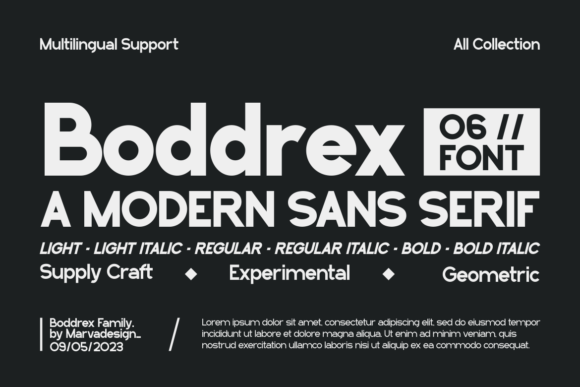
Boddrex Font: Elevate Your Design with a Sleek and Modern Sans-Serif
In the realm of typography, a font can make or break the visual appeal of a project. For those seeking a clean, contemporary, and professional look, Boddrex font emerges as an excellent choice. This sleek and modern sans-serif font is designed to bring a polished aesthetic to various applications, from websites and presentations to any design project that demands a touch of sophistication.
The Essence of Boddrex Font
Boddrex is characterized by its straightforward design, which is both simple and elegant. Its clean lines and uncomplicated structure make it an ideal choice for designers aiming to convey a sense of modernity and professionalism. The font’s simplicity ensures that it remains versatile, allowing it to be used across different mediums without losing its impact.
Key Features of Boddrex Font
- Modern Sans-Serif Design: Boddrex boasts a contemporary sans-serif design that fits perfectly into the modern design landscape. Its sleek appearance is ideal for projects that require a fresh and clean aesthetic.
- Clean and Straightforward: The font’s clean and straightforward design ensures that it can be used in a variety of contexts, from digital platforms to print materials, without appearing out of place.
- Versatility: Boddrex’s versatility is one of its standout features. It can be employed in everything from website designs and presentations to brochures and posters, offering a consistent and professional look across different mediums.
- Ease of Reading: Despite its modern and sleek appearance, Boddrex does not compromise on readability. Its clear and distinct letterforms ensure that text remains easy to read, making it suitable for body text as well as headings.
Applications of Boddrex Font
The applications of Boddrex font are vast and varied. Its modern simplicity and professional look make it an excellent choice for:
- Web Design: For websites aiming for a clean and modern look, Boddrex can be used for headings, subheadings, and even body text, providing a cohesive and polished appearance.
- Presentations: Elevate your presentations with Boddrex, making them look more sophisticated and engaging. Its clarity ensures that your message is conveyed effectively.
- Print Materials: From brochures and flyers to posters and business cards, Boddrex brings a touch of modern elegance to any print material.
- Branding: For brands looking to revamp their image with a modern and clean aesthetic, Boddrex can be a valuable asset in creating a consistent visual identity.
Why Choose Boddrex Font?
In a world where first impressions are crucial, the choice of font can significantly impact how your project is perceived. Here are a few reasons why Boddrex stands out:
- Timeless Appeal: While Boddrex is undeniably modern, its clean design ensures that it will remain relevant for years to come, avoiding the quick obsolescence that can affect trendier fonts.
- Enhanced Readability: Boddrex combines style with substance, offering not only a visually appealing design but also ensuring that readability is never compromised.
- Wide Compatibility: The font’s versatility and simplicity make it compatible with a wide range of design projects and applications, providing a consistent look and feel.
How to Use Boddrex Font Effectively
To make the most of Boddrex font, consider the following tips:
- Pair with Complementary Fonts: While Boddrex is versatile on its own, pairing it with complementary fonts can add depth and interest to your design. Choose fonts that maintain the clean and modern vibe.
- Adjust Size and Weight: Boddrex comes in various weights, allowing you to play with size and weight to create visual hierarchy and emphasize key points.
- Consider Color: The color you choose for Boddrex can significantly impact its effectiveness. Stick to a palette that complements your brand and design theme.
Boddrex font offers a unique blend of modern simplicity and professional elegance, making it an excellent choice for designers looking to elevate their projects. Its clean lines, versatility, and readability ensure that it can be used across a wide range of applications, from digital designs to print materials. By incorporating Boddrex into your typographic style, you can achieve a fresh and clean aesthetic that aligns with the modern design landscape. Upgrade your design with Boddrex and experience the impact of a sleek and contemporary sans-serif font.
FAQs About Boddrex Font
- What type of font is Boddrex?
- Boddrex is a sleek and modern sans-serif font.
- Is Boddrex suitable for web design?
- Yes, Boddrex is highly suitable for web design due to its clean and modern appearance, as well as its readability.
- Can Boddrex be used for print materials?
- Absolutely, Boddrex’s versatility makes it an excellent choice for a variety of print materials, including brochures, posters, and business cards.
- Is Boddrex easy to read?
- Yes, despite its modern design, Boddrex maintains high readability, making it suitable for both headings and body text.